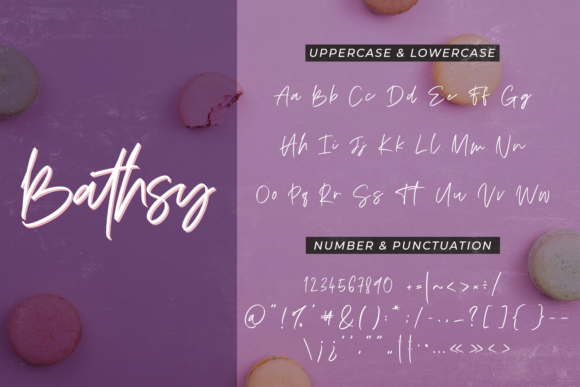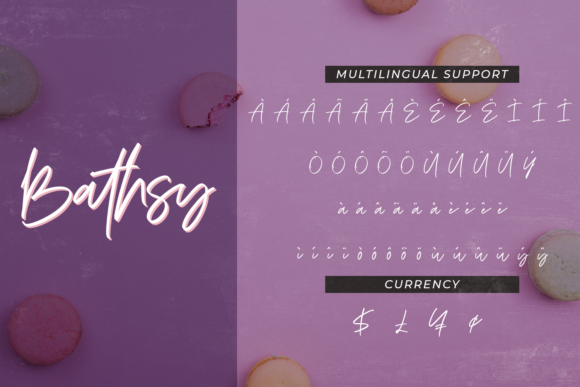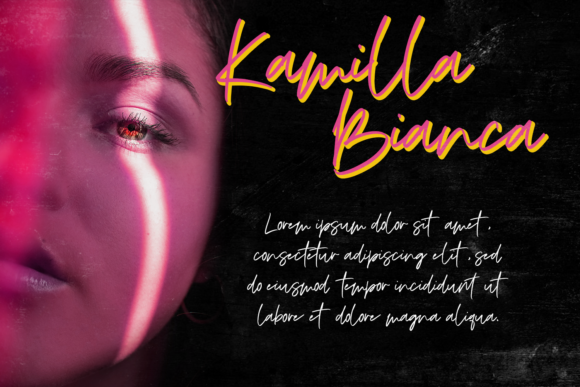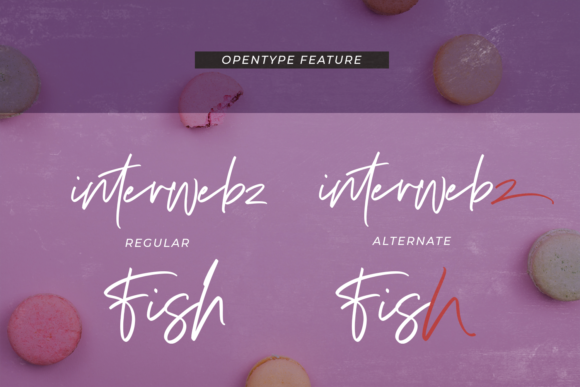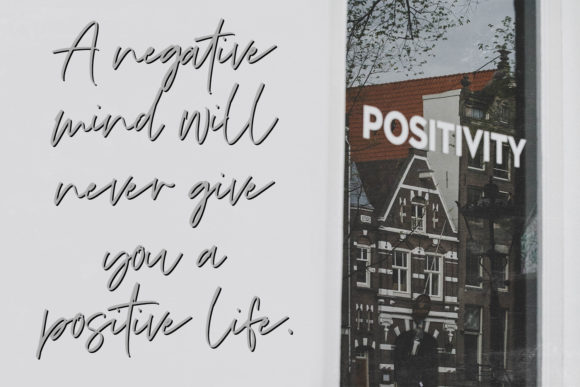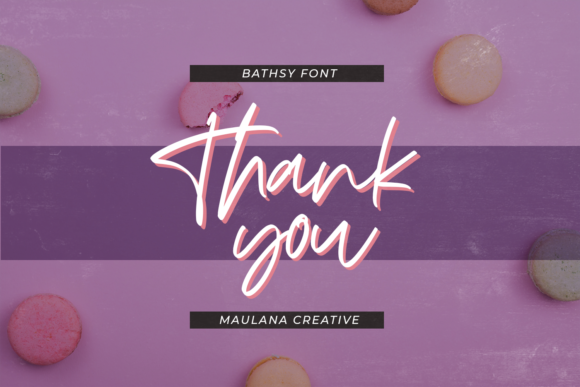
Bathsy Font: The Sweet and Friendly Handwritten Font for Your Design Needs
Are you looking for a font that can add a touch of warmth and personality to your designs? Look no further than Bathsy Font! This sweet and friendly handwritten font is perfect for a wide range of design projects, from crafting and DIY tutorials to branding and marketing materials. In this article, we’ll take a closer look at the Bathsy Font and explore its features, benefits, and uses.
What is Bathsy Font?
Bathsy Font is a beautiful, handwritten font that is designed to bring a sense of friendliness and approachability to your designs. Its natural and unique style makes it incredibly versatile, and it’s perfect for adding a personal touch to your projects. Whether you’re creating invitations, labels, or social media graphics, Bathsy Font is sure to make your designs stand out.
Features of Bathsy Font
So, what makes Bathsy Font so special? Here are just a few of its key features:
- Sweet and friendly style: Bathsy Font has a warm and inviting style that’s perfect for creating designs that feel approachable and relatable.
- Natural and unique: Unlike some fonts that can feel generic or overused, Bathsy Font has a distinctive, handmade feel that’s sure to capture attention.
- Highly versatile: Whether you’re creating digital or print designs, Bathsy Font is incredibly versatile and can be used in a wide range of projects.
- Easy to read: Despite its playful style, Bathsy Font is easy to read and understand, making it perfect for designs that need to communicate a message.
Benefits of Using Bathsy Font
So, why should you choose Bathsy Font for your design projects? Here are just a few benefits of using this amazing font:
- Adds a personal touch: With Bathsy Font, you can add a personal touch to your designs that will help them connect with your audience.
- Creates a consistent brand voice: If you’re looking to create a consistent brand voice across all your marketing materials, Bathsy Font can help you achieve that.
- Perfect for crafting and DIY projects: If you’re a crafter or DIY enthusiast, Bathsy Font is perfect for creating project tags, labels, and other materials.
- Great for social media graphics: With Bathsy Font, you can create social media graphics that are sure to grab attention and engage your audience.
Uses for Bathsy Font
So, what can you use Bathsy Font for? The possibilities are endless! Here are just a few ideas to get you started:
- Crafting and DIY projects: Use Bathsy Font to create project tags, labels, and other materials for your crafting and DIY projects.
- Invitations and party decor: Create beautiful invitations and party decor with Bathsy Font that will set the tone for your event.
- Branding and marketing materials: Use Bathsy Font to create consistent branding and marketing materials that reflect your brand’s personality.
- Social media graphics: Create engaging social media graphics with Bathsy Font that will help you connect with your audience.